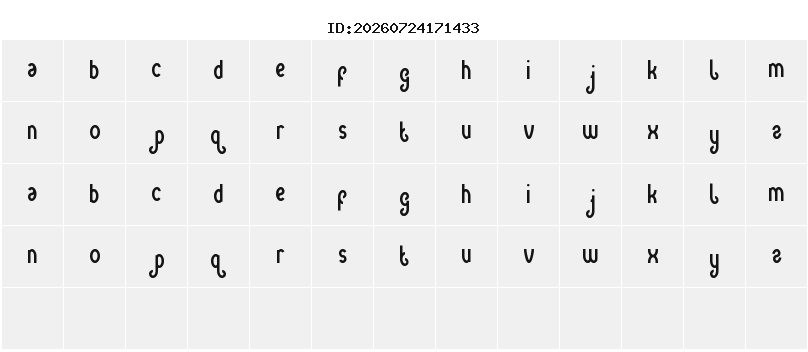
green avocado Preview
• Font Name: green avocado
• Font ID: green avocado:Version 1.00
• Full Font Name: green avocado
• Version: Version 1.00 October 28, 2012, initial release
• PostScript Name: greenavocado
About green avocado.ttf
green avocado.ttf is a modern, elegant sans-serif font designed for ultimate readability and visual harmony. Perfect for branding, headlines, web design, and print materials.